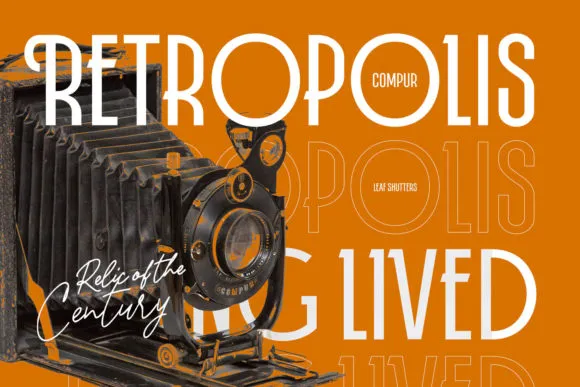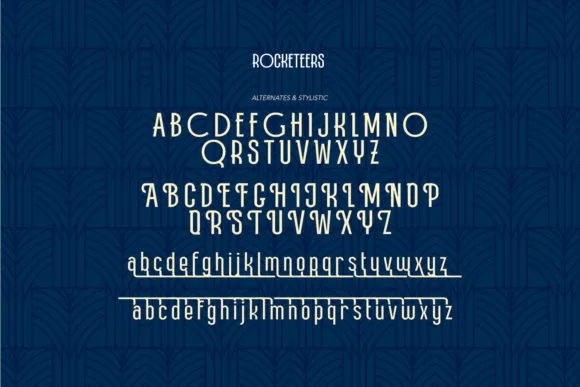
Rocketeers Font is a consolidated sans serif textual style including straightforward Workmanship Deco flows. Motivated by the composing style of the 1930s time. A striking and durable stylish style portrays this text style. A few substitute styles can be changed in accordance with investigate various shapes.
Rocketeers Font typeface is ideally suited for a brand logo, one of a kind stuff, design, clean plan, magazine cover, greeting, banner, flyer, or basically as a smart text overlay to any foundation picture.